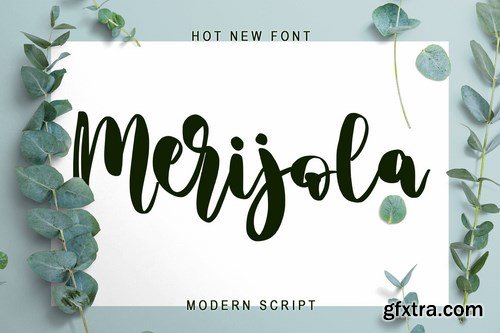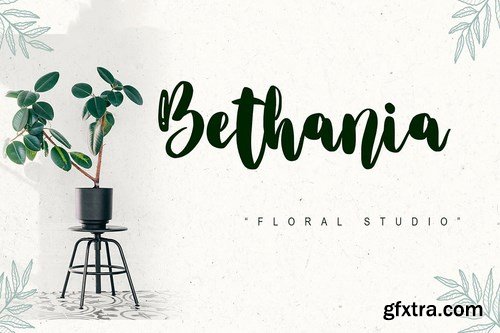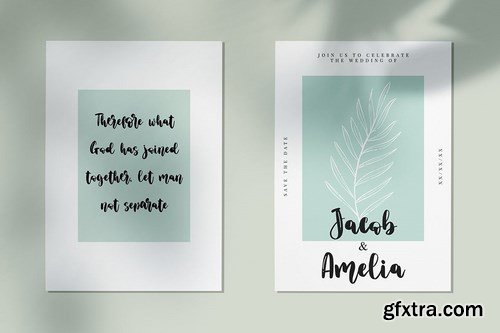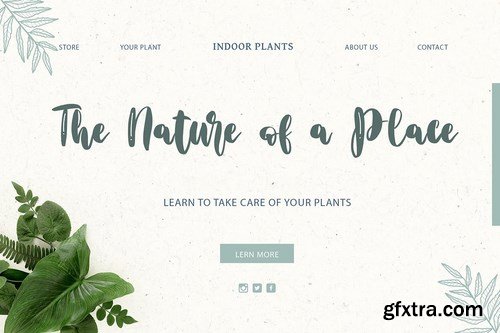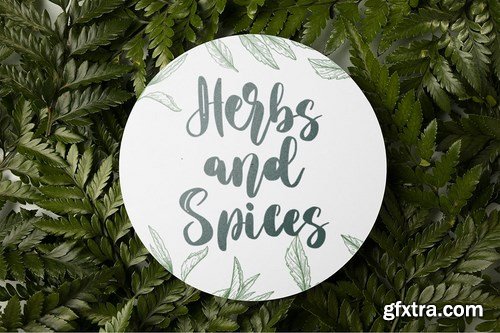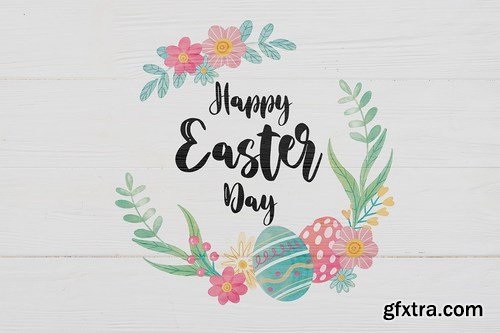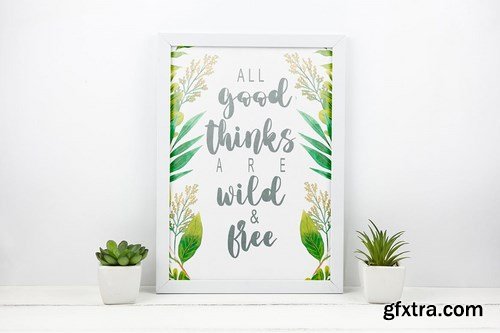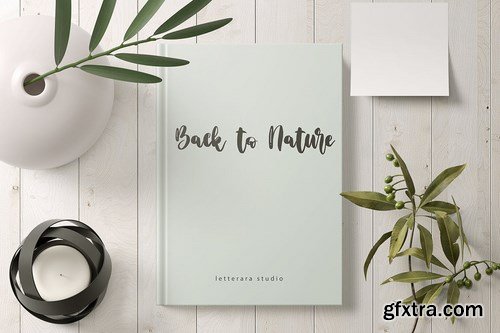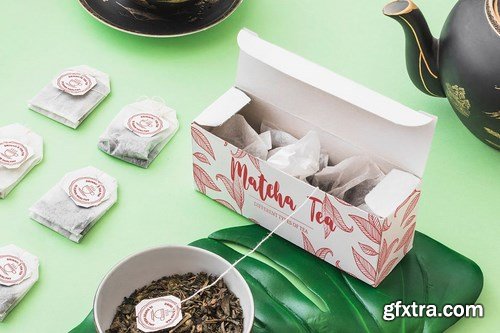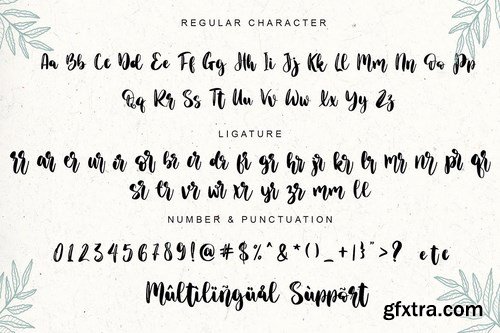
Merijola is a fresh and bold script font with a lot of personalities. It’s cute and bold, This will give a beautiful impression that stands out for your designs. Merijola makes a friendly feel to any design project! This font is PUA encoded which means you can access all of the cute glyphs with ease! It also features a wealth of including ligatures